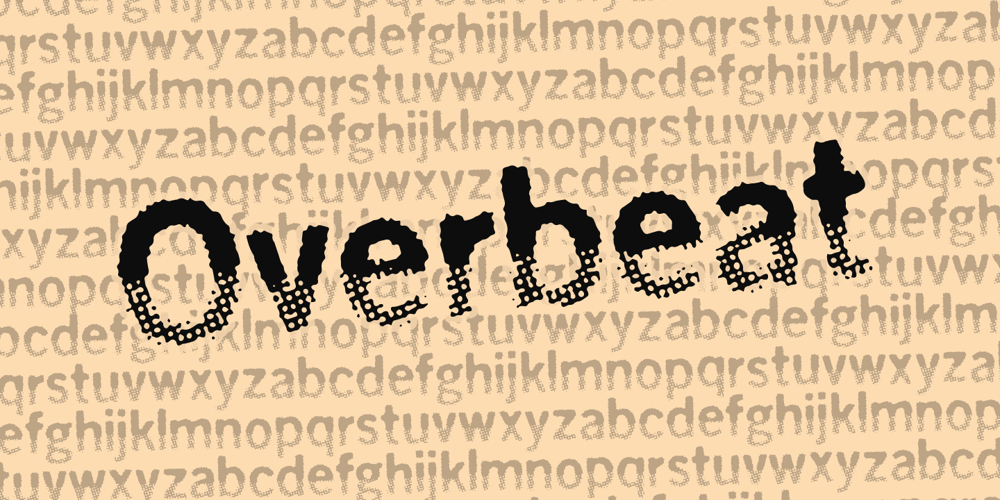
Overbeat Font Family was designed by Jakob Fischer and published by PizzaDude.dk. Overbeat contains 1 styles and family package options. Grunge is not dead! Neither is punk! The proof is the Overbeat font! It has got both grunge and punk in the one and same. The letters are grungy, and punked up with a sort of halftone slime effect. It’s hard, it’s tough and perhaps even scary! Play around with the font and you’ll quickly notice the variety of the font. Each lowercase letter has 4 different versions and there is ligature substitution for most common uppercase double letters!